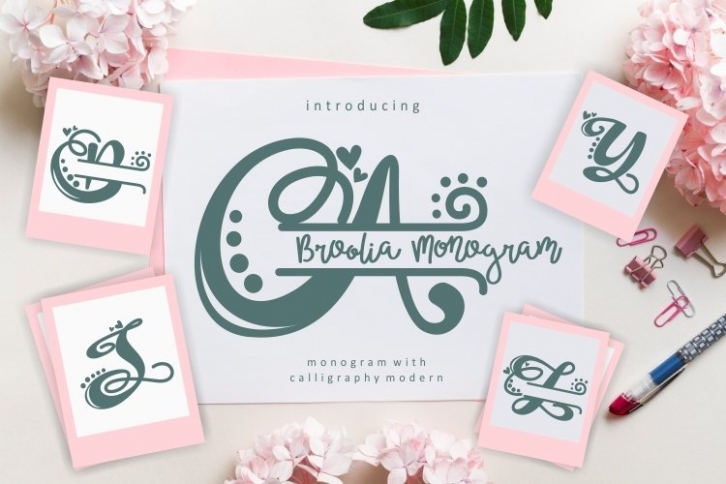
Broolia Monogram is a trendy and unique font with an authentic style. It was designed by Eknoji and it's a great choice for creative people who need such a font. It was released on October 20, 2020 and the file size is 13.11 MB. Broolia Monogram will add an organic vibe to any design idea!